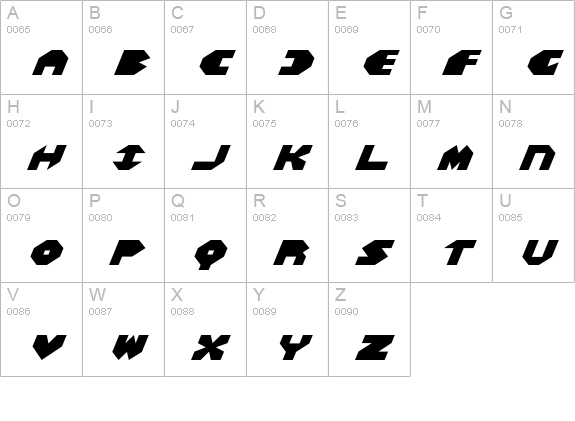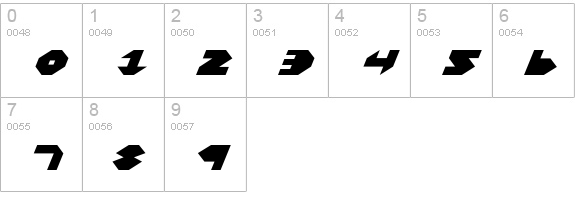
Bal-Astaral Expanded Italic Font Details
Bal-Astaral Expanded Italic is a distinctive, extended-width, italic variant in the Bal typeface family \xE2\x80\x94 well suited to design and typography projects.
Bal-Astaral Expanded Italic font is a stunning and elegant typeface that exudes a sense of sophistication and style. Its sleek and modern design makes it perfect for a wide range of creative projects, from branding to editorial design. The italicized form of the font adds a touch of flair and uniqueness, making it stand out from the crowd. What sets Bal-Astaral Expanded Italic font apart is its versatility and readability. Whether used for headlines, body text, or graphic elements, this font ensures a polished and professional look. The expanded width of the characters gives a sense of stability and presence, making it ideal for making a bold statement. Best of all, Bal-Astaral Expanded Italic font is available for free download at FontsMarket.com. This means you can easily access this high-quality typeface and incorporate it into your projects without any cost. Don't miss out on the opportunity to enhance your designs with this exceptional font that combines elegance and functionality seamlessly.